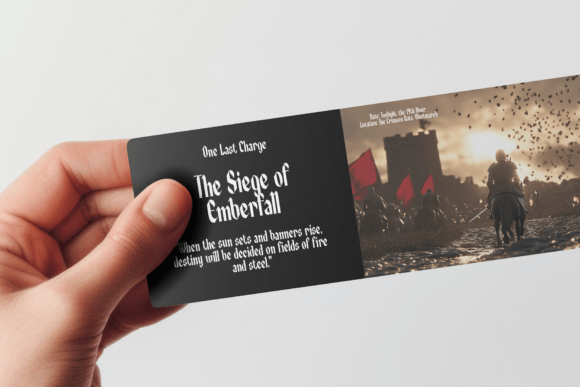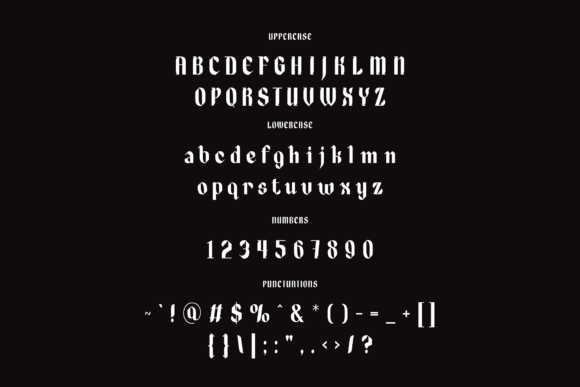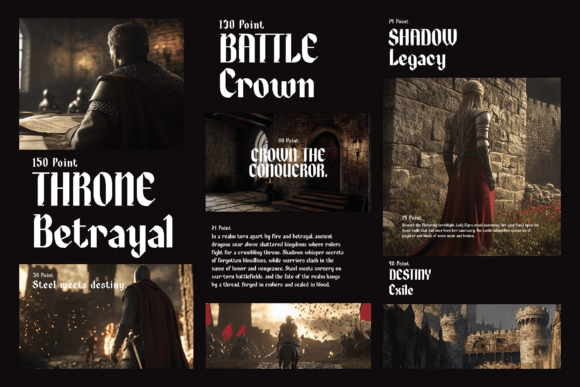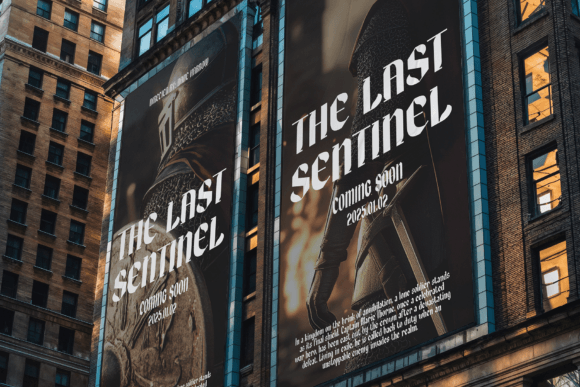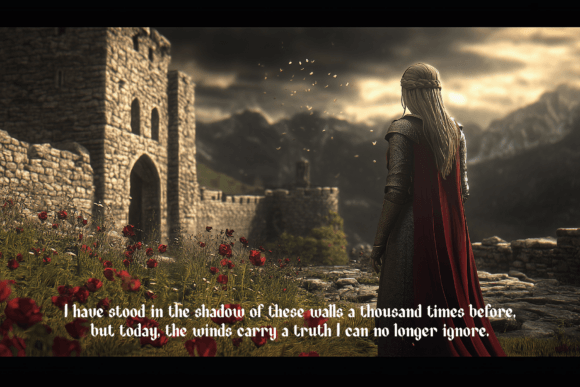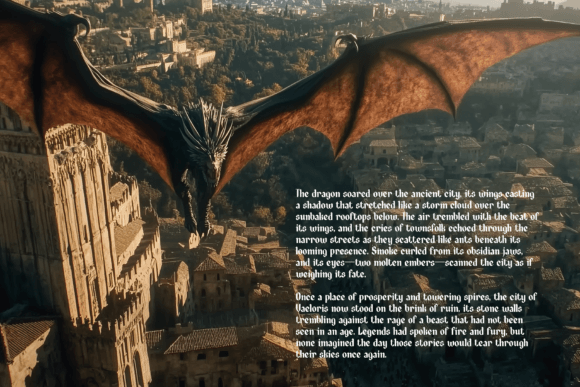
Unleash the Power of Legend with Dragonhelm Font
Imagine a world where medieval grandeur comes alive through the strokes of your pen or the click of your mouse. Welcome to the realm of Dragonhelm, a breathtaking medieval-inspired typeface that exudes the grandeur of a bygone era. With intricate details and bold strokes, this typeface is a tribute to the timeless beauty of medieval calligraphy, designed to captivate and command attention.
The Essence of Medieval Elegance
Dragonhelm is more than just a font; it’s an experience. It transports you and your audience to a world of castles, courage, and enchantment. Whether you’re crafting a tale of knights and dragons or evoking the mystique of ancient realms, Dragonhelm brings unparalleled elegance and drama to your designs. Its striking presence and artistic flair make it a must-have for any project that seeks to inspire awe and wonder.
Design Features of Dragonhelm
So, what makes Dragonhelm stand out from the rest? Here are a few key features that contribute to its unique charm:
- Intricate Details: Dragonhelm boasts intricate details that are reminiscent of medieval manuscripts and ancient stone carvings. Each letterform is carefully crafted to reflect the ornate style of the period.
- Bold Strokes: The font features bold, confident strokes that give it a commanding presence. This makes it perfect for headings, titles, and any text that needs to stand out.
- Medieval Flair: From the elegant serifs to the decorative flourishes, Dragonhelm is infused with a medieval flair that adds a touch of authenticity to your designs.
Perfect for Dramatic Projects
Dragonhelm is designed to make a statement. It’s perfect for projects that require a sense of drama and grandeur. Here are some ideas for using Dragonhelm:
- Fantasy Novels: Add a touch of magic to your book covers or interior designs with Dragonhelm’s medieval charm.
- Event Branding: Create a lasting impression with event posters, invitations, or programs that feature Dragonhelm’s bold and elegant lettering.
- Web Design: Use Dragonhelm to create stunning headers, titles, or even entire websites that transport visitors to a world of wonder.
Tips for Using Dragonhelm Effectively
To get the most out of Dragonhelm, here are a few tips to keep in mind:
- Pair with Simple Fonts: Balance Dragonhelm’s boldness with simpler fonts for body text to create visual harmony.
- Experiment with Colors: Try pairing Dragonhelm with rich, bold colors to enhance its medieval feel.
- Play with Size: Use Dragonhelm in various sizes to create visual hierarchy and emphasize key elements in your designs.
Dragonhelm is more than just a font – it’s a gateway to a world of legend and wonder. With its intricate details, bold strokes, and medieval flair, it’s the perfect choice for designers and crafters looking to add a touch of grandeur to their projects. So why wait? Let Dragonhelm transport your audience to a world of castles, courage, and enchantment. The legend begins here!